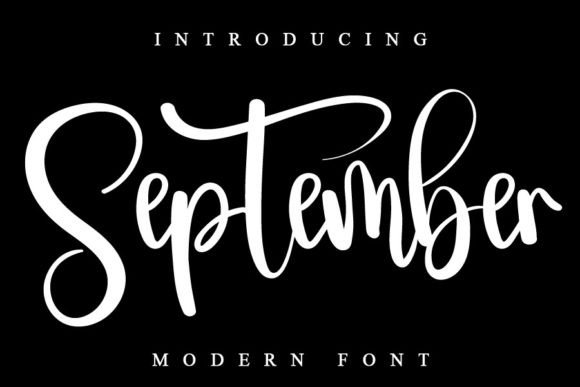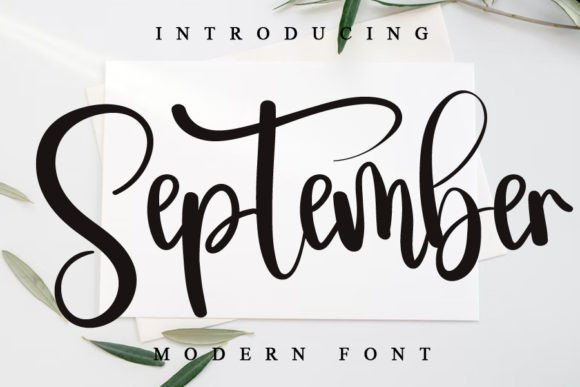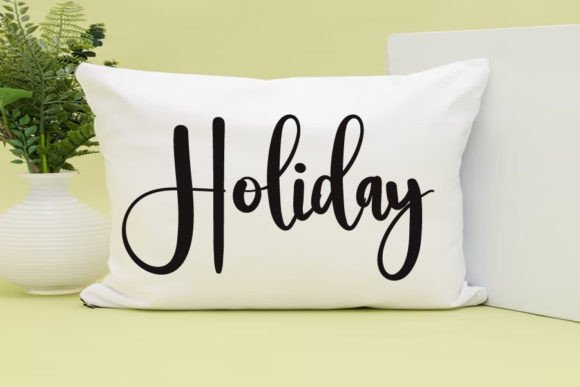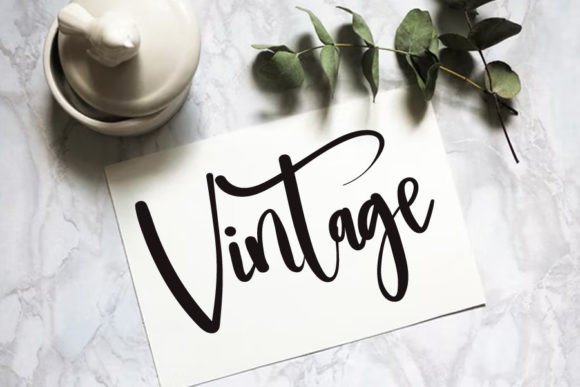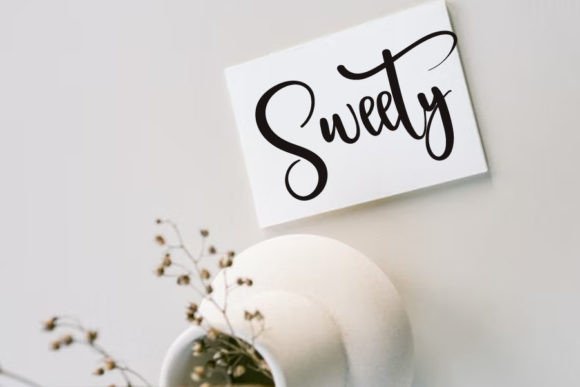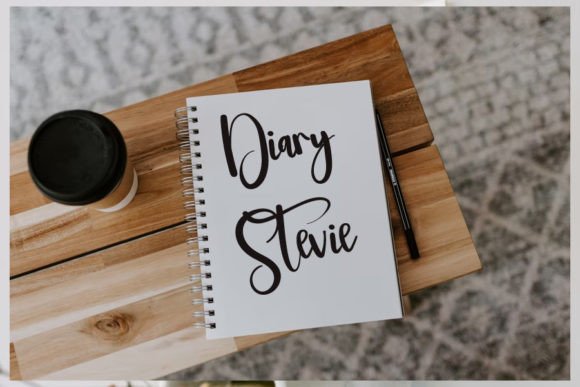
About September Font
“September” is a font that brings a sense of freshness and beauty to your design endeavors, making it a versatile choice for a wide range of applications. Whether you’re working on YouTube banners, cover logo mockups, wedding invitations, ID cards, flyers, or craft projects, the September font offers a unique charm that can elevate your designs.
In the realm of digital media, such as YouTube banners and cover logo mockups, September stands out by infusing a fresh and beautiful aesthetic. Its simplicity and uniqueness contribute to eye-catching visuals that have the potential to significantly impact your brand identity. The font’s versatility ensures that it complements various design elements, allowing you to create a distinctive and memorable online presence.
For special occasions like weddings, September adds an elegant touch to invitations. The font’s beauty, simplicity, and unique character contribute to a stylish and memorable design, setting the tone for a sophisticated event. By incorporating September into your wedding invitations, you can create a personalized and visually striking representation of your celebration.
In practical applications like ID cards, September strikes a balance between simplicity and uniqueness. Its clean lines and distinct features contribute to a modern and professional appearance, ensuring that your ID cards not only serve their functional purpose but also make a visual impact.
When it comes to promotional materials such as flyers, September’s fresh and beautiful design enhances the overall presentation. The font’s simplicity aids in readability, making your messaging more effective and engaging for your target audience.
September is not limited to digital applications; it also complements craft projects. Whether you’re creating handmade items, labels, or other craft-based designs, this font adds a touch of creativity and style, enhancing the visual appeal of your artistic endeavors.
In conclusion, September is more than just a font; it’s a design asset that has the potential to contribute to the progress and development of your business. Its simplicity and uniqueness make it a valuable tool for various design purposes, allowing you to create visually stunning and impactful projects across different mediums. Leverage the fresh and beautiful qualities of September to elevate your design work and make a positive impression on your audience.